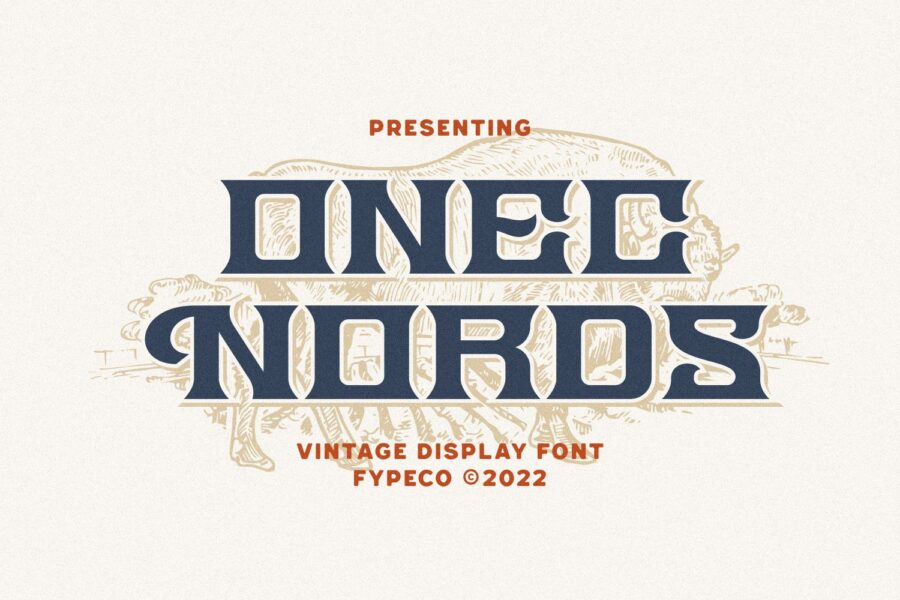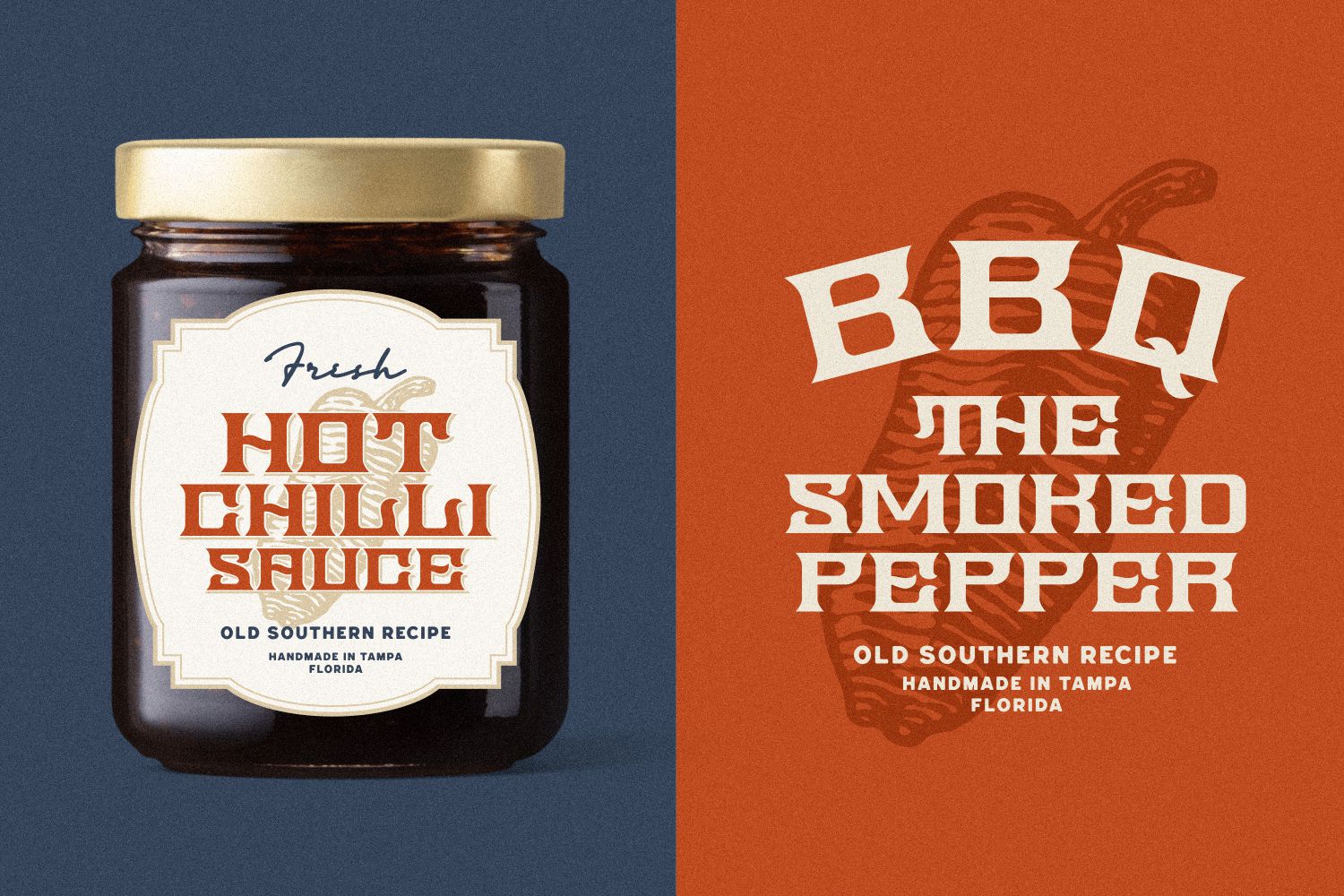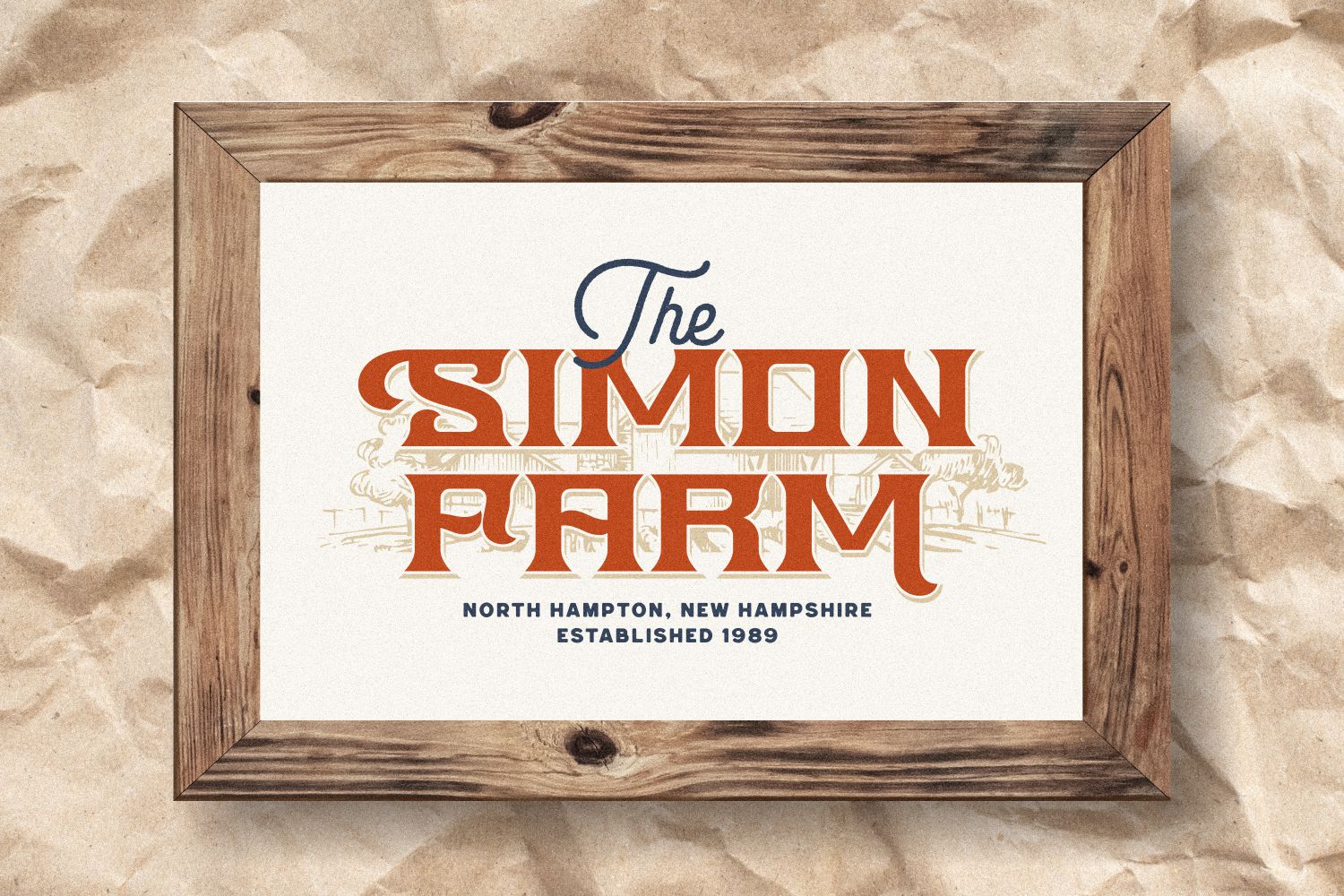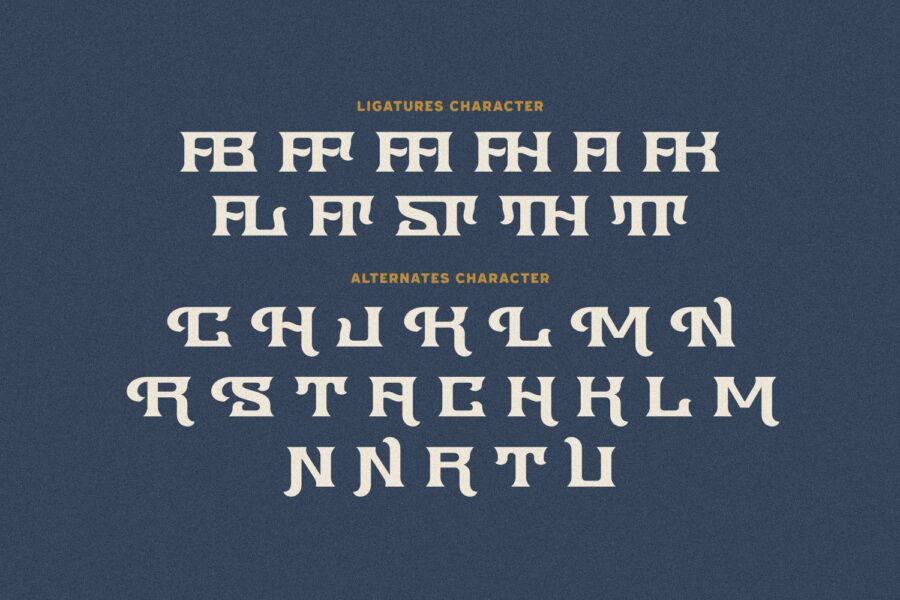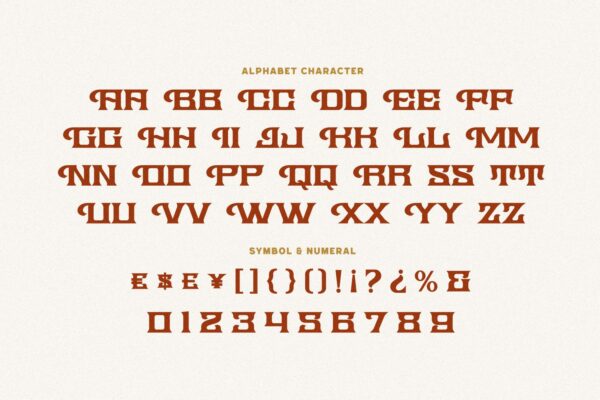
The Onec Nords font is a bold vintage display typeface inspired by classic Western lettering and retro signage. Its strong structure, sharp serifs, and handcrafted details evoke an authentic rustic character that feels timeless and full of personality. Perfect for projects that require a rugged yet stylish aesthetic, this font carries the charm of old-world craftsmanship blended with modern usability.
With a complete set of alternates, ligatures, and multilingual support, Onec Nords is highly versatile for branding, packaging, posters, labels, and logo designs. Whether used on farm-inspired products, BBQ restaurants, hot sauce branding, or retro-themed events, this font delivers an impactful visual statement that feels both nostalgic and bold.
Onec Nords